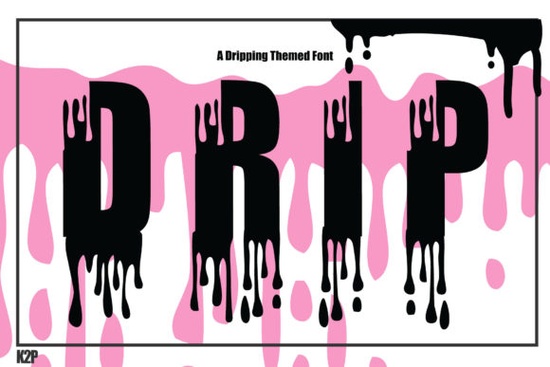
If you’ve been searching for a display font that feels handcrafted but still holds up in professional projects, Dripx Font might be exactly what you’re looking for. It’s got thick, bold lettering with just enough personality to stand out without feeling overdesigned. Whether you’re making classroom posters, motivational quote graphics, or print-on-demand mugs, this font adds an authentic, slightly imperfect charm that connects with viewers.
What makes Dripx work so well is how naturally it fits into everyday creative projects. You don’t need to add extra textures or effects to make it feel “real” the design already carries that handmade vibe. Teachers love using it for bulletin boards and printable worksheets. Etsy sellers use it on vinyl decals and tote bags. And designers? They drop it into social media templates when they want something that doesn’t look like every other clean sans-serif font out there.
Who actually uses fonts like this?
It’s not just graphic designers. Think about:
- Crafters who cut vinyl or heat-transfer designs Dripx holds up beautifully at larger sizes.
- Small business owners creating their own signage, packaging labels, or Instagram stories.
- Teachers and homeschoolers building fun, readable classroom materials.
- Print-on-demand creators designing t-shirts, mugs, or journals where personality matters more than perfection.
If you’ve tried fonts like Cute Paws for whimsical projects or Flame Font for edgy designs, Dripx sits right in the middle playful but grounded, stylized but legible.
How does it compare to other decorative fonts?
Some decorative fonts are so stylized they become hard to read after a few words. Others feel too rigid or digital. Dripx avoids both traps. The letters have subtle variations in stroke width and slight irregularities that mimic real brushwork but not so much that your audience squints to read your message.
For example, if you’re pairing it with something simpler like Spring Smile, you can use Dripx for headlines and Spring Smile for body text. That combo works great for greeting cards, kids’ activity sheets, or seasonal shop promotions.
What kinds of projects does it work best for?
Here are a few real-world examples where Dripx shines:
- Motivational quote posters The boldness grabs attention, while the organic shape keeps it warm and inviting.
- Kids’ classroom decor Big, friendly letters that hold up even when printed on basic paper.
- Branded merchandise Think coffee sleeves, enamel pins, or tote bags where you want your logo or slogan to feel personal.
- Social media templates Especially for accounts focused on self-care, parenting, or small biz tips.
It’s not the best choice for long paragraphs or tiny text (it’s a display font, after all), but for anything under 10 words? Perfect.
Any tips for getting the most out of it?
A few quick ideas:
- Pair it with plenty of white space. Let the letters breathe they’re meant to be the star.
- Try dark text on light backgrounds first. The thickness reads better that way, especially in print.
- Use sparingly. One headline per layout is usually enough. Too much, and the effect gets lost.
- Test print it. What looks good on screen might feel too heavy or too light once it’s physical.
If you’re already using other Creative Fabrica fonts like Dripx Font (yes, it has its own dedicated page too), you’ll find the download and install process is the same simple and fast.
And if you ever get stuck or want to see how others are using it, browsing mockups or tutorials inside Creative Fabrica’s community section can spark new ideas. Sometimes seeing one clever use like turning Dripx into a chalkboard-style menu is all you need to unlock your own project.